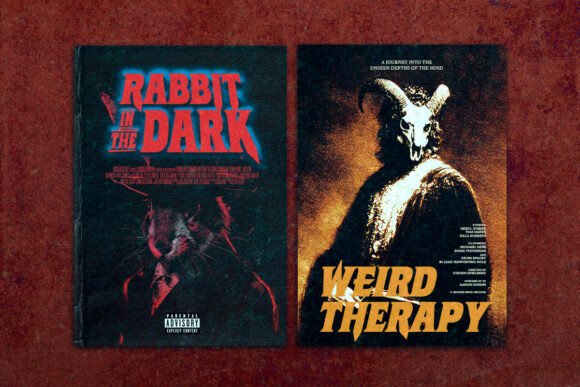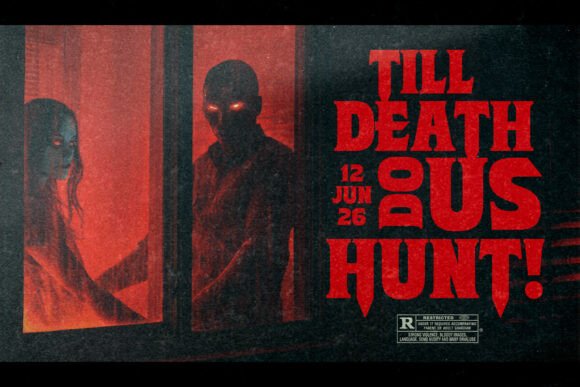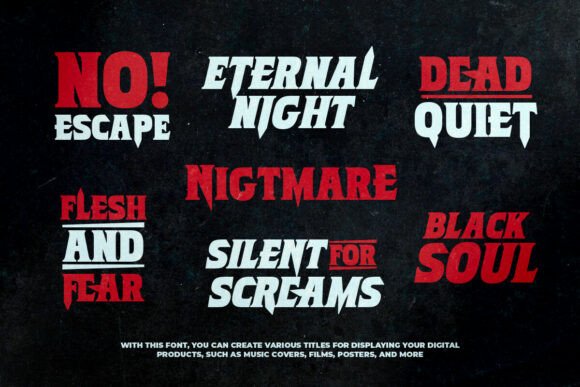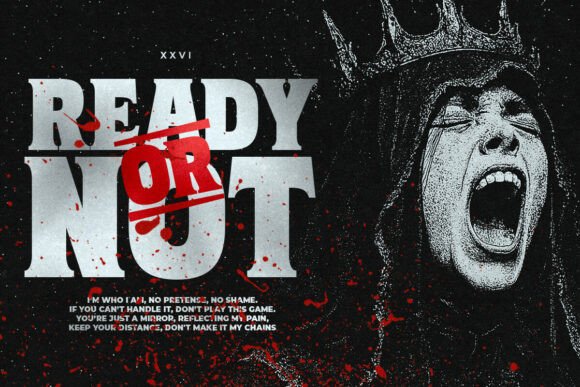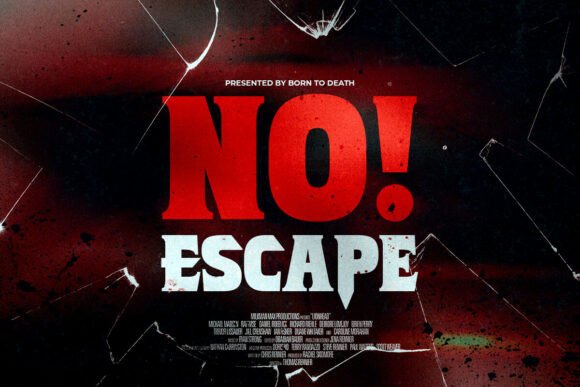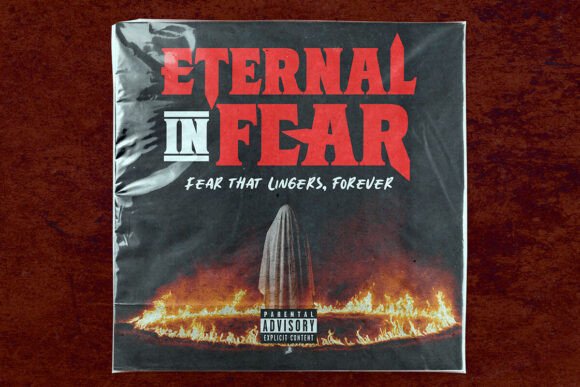
Bright Ideas and Dark Horrors: Unleashing the Power of Burntodeath Regular Font
You’ve spent hours staring at a blank canvas, searching for the perfect font to capture the essence of your latest project. And then, like a ghostly whisper in the night, it appears: Burntodeath Regular Font. This all-caps, wedge-serif horror display font is the perfect tool for designers who want to create a sense of foreboding and menace in their work.
Burntodeath Regular Font is a masterclass in typography, with its heavy, condensed serif skeleton and jagged, blade-like terminals giving every letter a carved, menacing feel. Whether you’re creating horror posters, game covers, album art, or Halloween branding, this font is sure to leave a lasting impression. And with its unique texture and versatility, it’s a valuable addition to any designer’s toolkit.
- Unique Characteristics: Distressed, rough, and worn texture, giving it a vintage and distressed look
- Font Style: Regular, with a bold and rugged feel, perfect for creating attention-grabbing designs
As a designer, I’ve had the chance to work with a wide variety of fonts, and the Burntodeath Regular Font is one of them. Here’s my honest take on it.
- Unique aesthetic: The Burntodeath Regular Font has a distinctive look that sets it apart from other fonts. Its distressed, worn-in feel gives it a sense of character and personality.
- Good legibility: Despite its rugged appearance, the font is surprisingly easy to read, making it suitable for a wide range of applications.
- Limited font size flexibility: The font starts to break down at very small sizes, which can make it difficult to use for fine print or other applications where small text is required.
- No bold or italic versions: While the regular font is available, there are no bold or italic versions to provide contrast and emphasis.
The Burntodeath Regular Font is a solid choice for designers looking for a unique, rugged aesthetic. While it has its limitations, it’s a great option for projects where a distressed look is desired. However, it may not be the best choice for applications where fine print or emphasis is required.
Burntodeath Regular Font is ideal for use in bold, eye-catching headings and titles. It’s also great for creating a distressed or vintage look in your designs. Try pairing it with other fonts to create a unique and interesting visual effect.